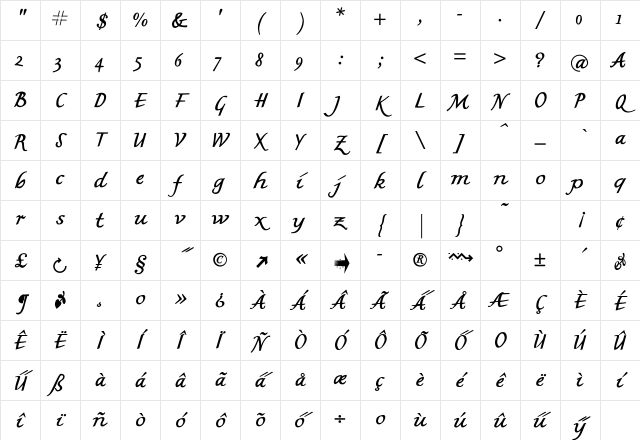
Complete AIBritishWriting Medium glyph index. Displaying only characters natively supported by AIBritishWriting Medium font.
AIBritishWriting is a composed and adaptable typeface that performs quietly and consistently across a wide range of design contexts.
Who designed the AIBritishWriting Medium font?